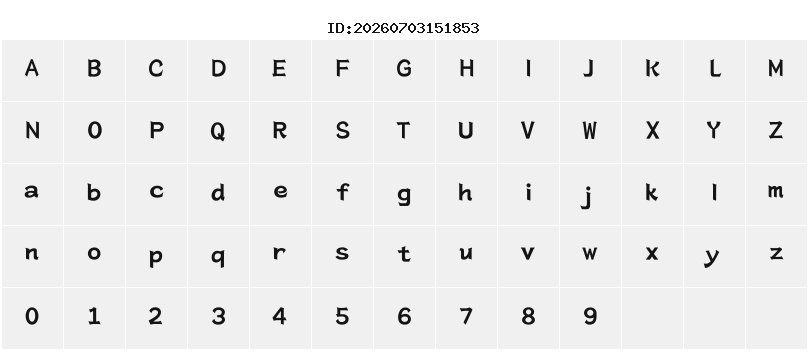
087-上首乾坤体 Preview
• Font Name: 087-上首乾坤体
• Font ID: 087-SS Qian Kun Ti:Version 6.00
• Full Font Name: 087-上首乾坤体
• Version: Version 6.00 February 2, 2024
• PostScript Name: 087-SSQianKunTi
• Character Count: 7569
• Manufacturer: 上首造字
About 087-上首乾坤体.ttf
087-上首乾坤体.ttf is a modern, elegant sans-serif font designed for ultimate readability and visual harmony. Perfect for branding, headlines, web design, and print materials.